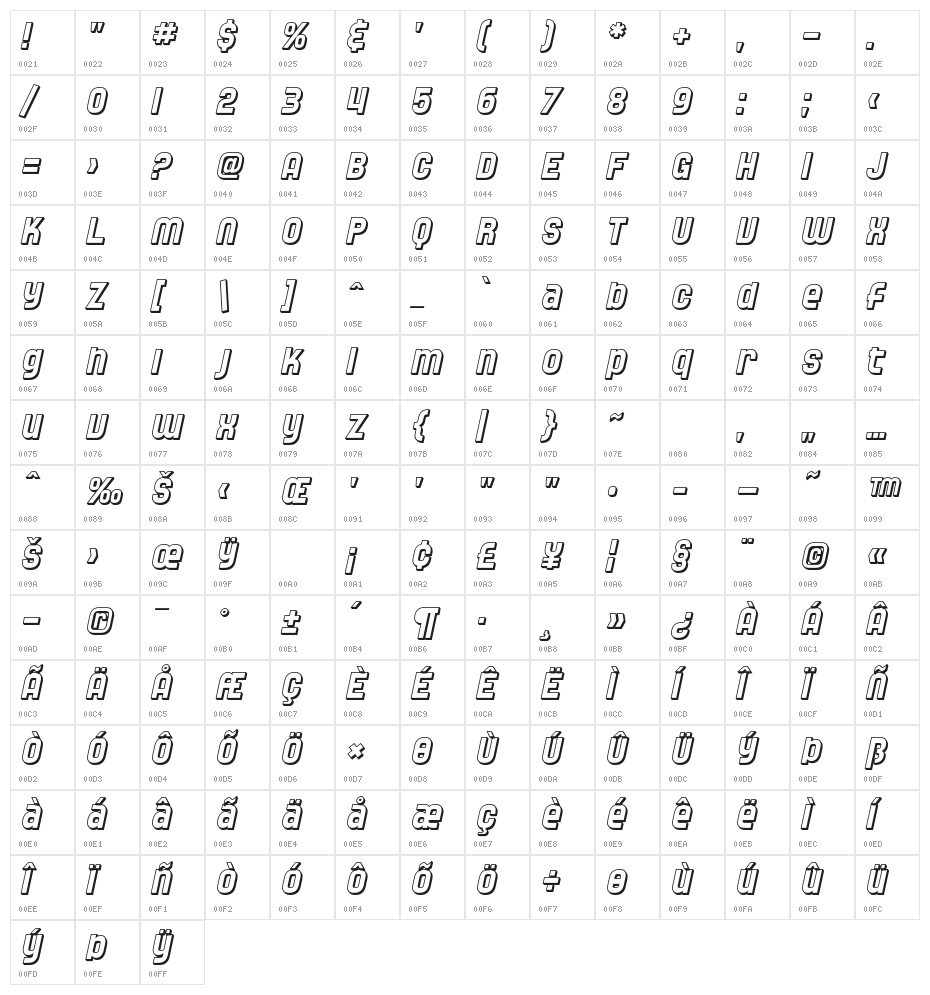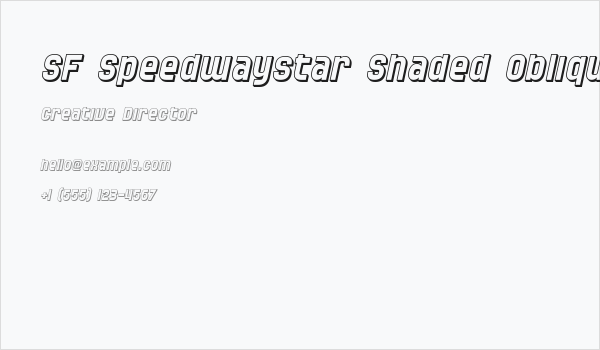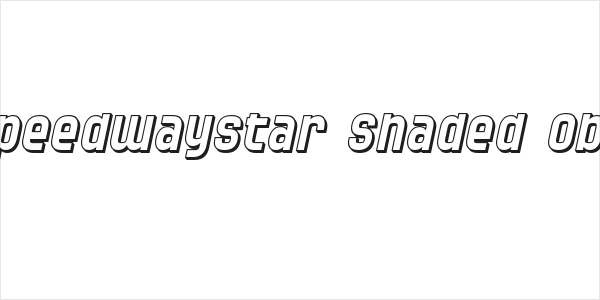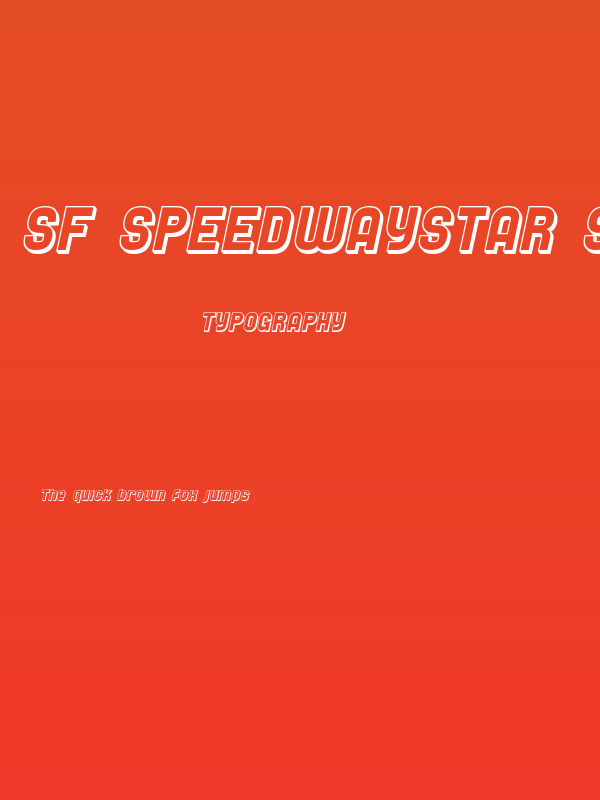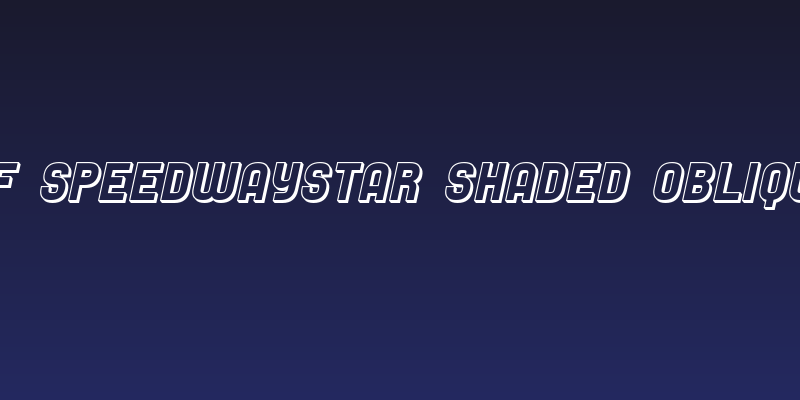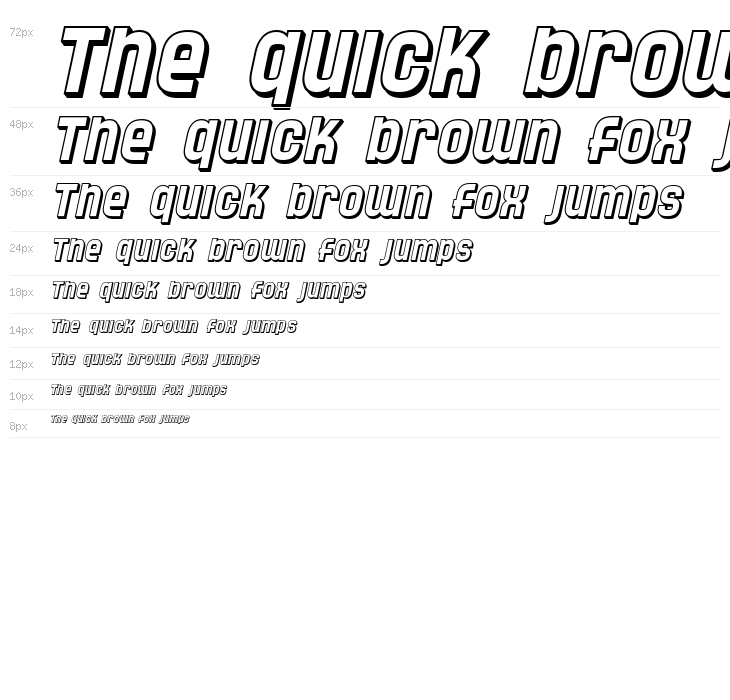
SF Speedwaystar Shaded Oblique Font
SF Speedwaystar Shaded Oblique Description
This font features a bold, dynamic style with a distinct oblique slant, giving it a sense of motion and speed. The characters are outlined with a shaded effect, enhancing the three-dimensional appearance and adding depth. The uppercase and lowercase letters maintain a consistent style, with rounded edges and a slightly condensed form. The numerals and special characters follow the same design principles, ensuring uniformity across all glyphs. This font is ideal for projects that require a modern, sporty, and energetic look.
| Proposed Projects | Ideal for sports branding, automotive designs, dynamic posters, and modern advertisements. |